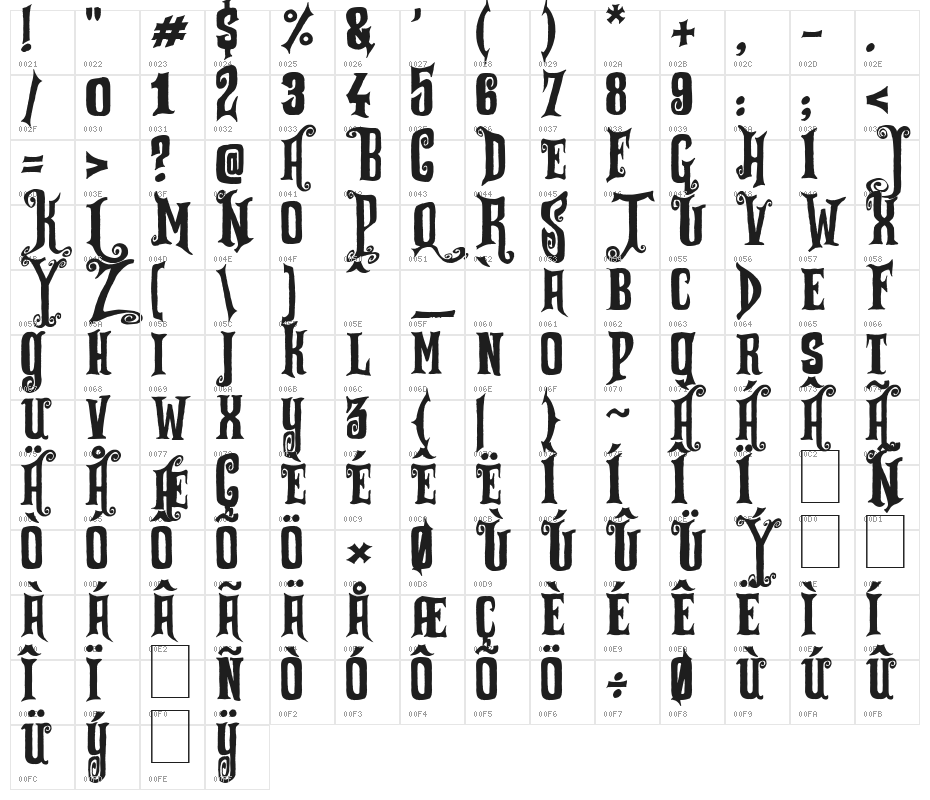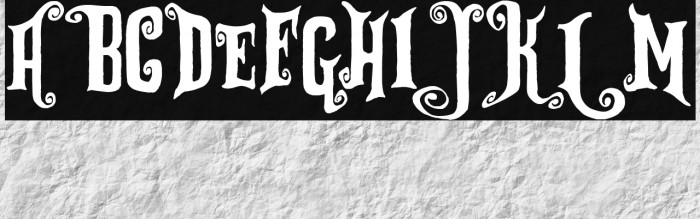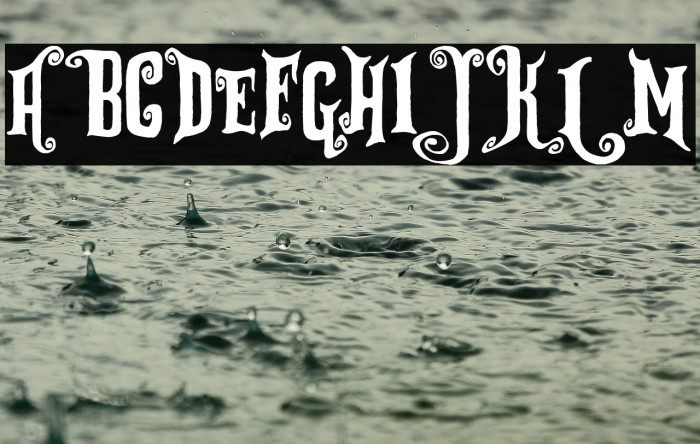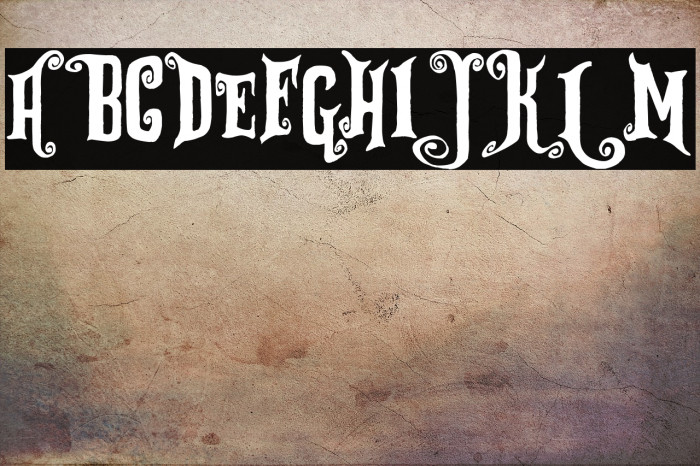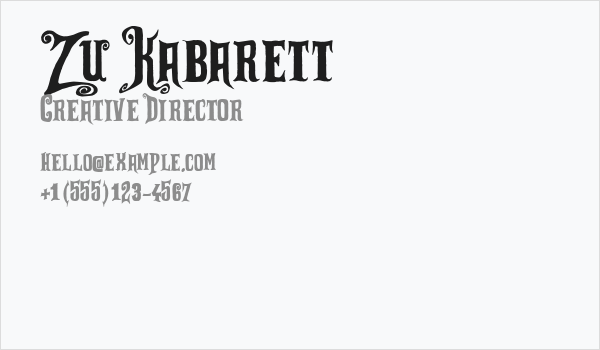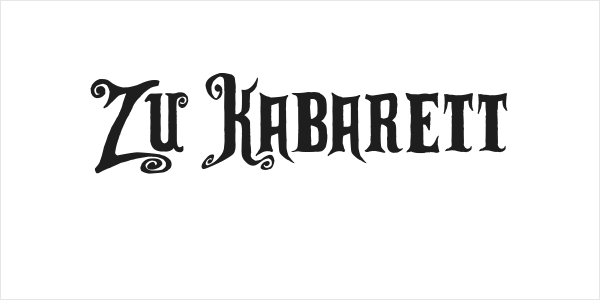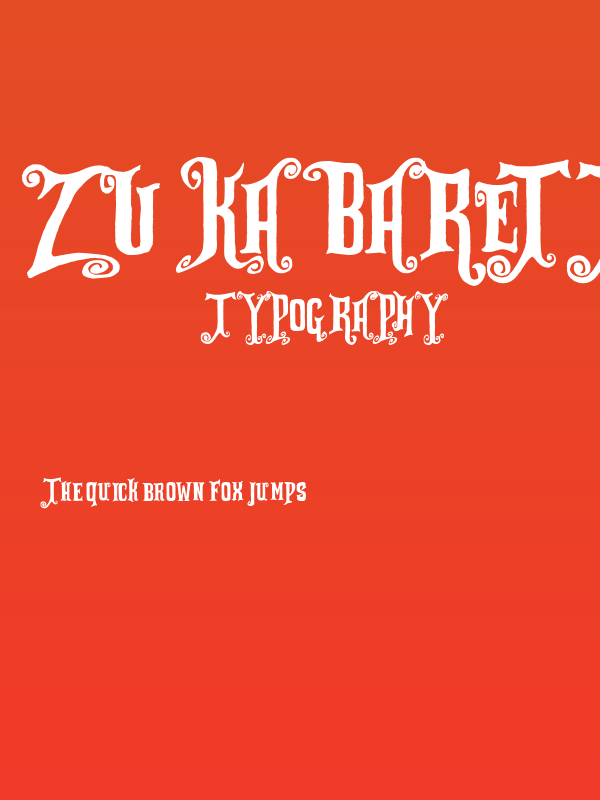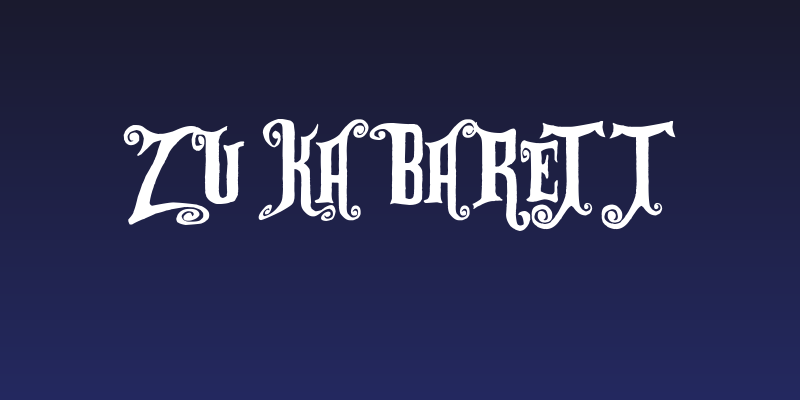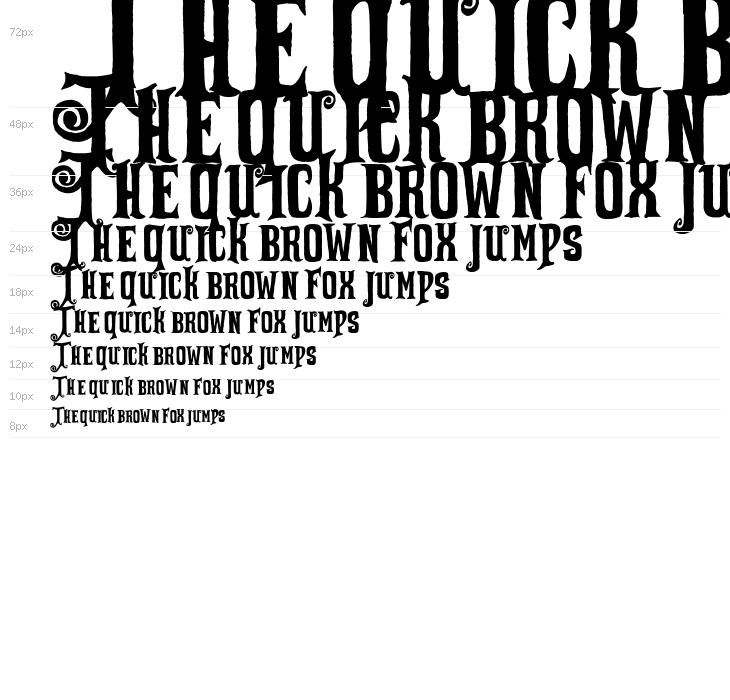
Zu Kabarett Font
Zu Kabarett Description
This font features a highly decorative and whimsical style, characterized by its playful and artistic letterforms. Each character is adorned with unique flourishes and curls, giving it a lively and theatrical appearance. The uppercase letters are bold and dramatic, with exaggerated serifs and intricate detailing. The lowercase letters maintain a consistent style, complementing the uppercase with their own flair. Numbers and special characters follow the same ornate design, ensuring a cohesive look across all elements. This font exudes a sense of creativity and fun, making it ideal for projects that require a touch of personality and flair.
| Proposed Projects | Ideal for theatrical posters, vintage-themed designs, creative branding, and artistic invitations. |